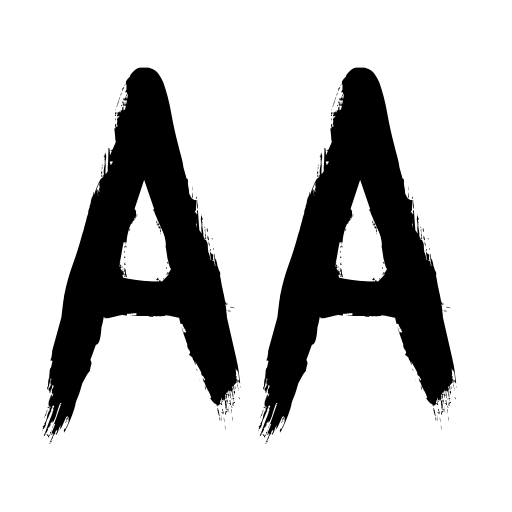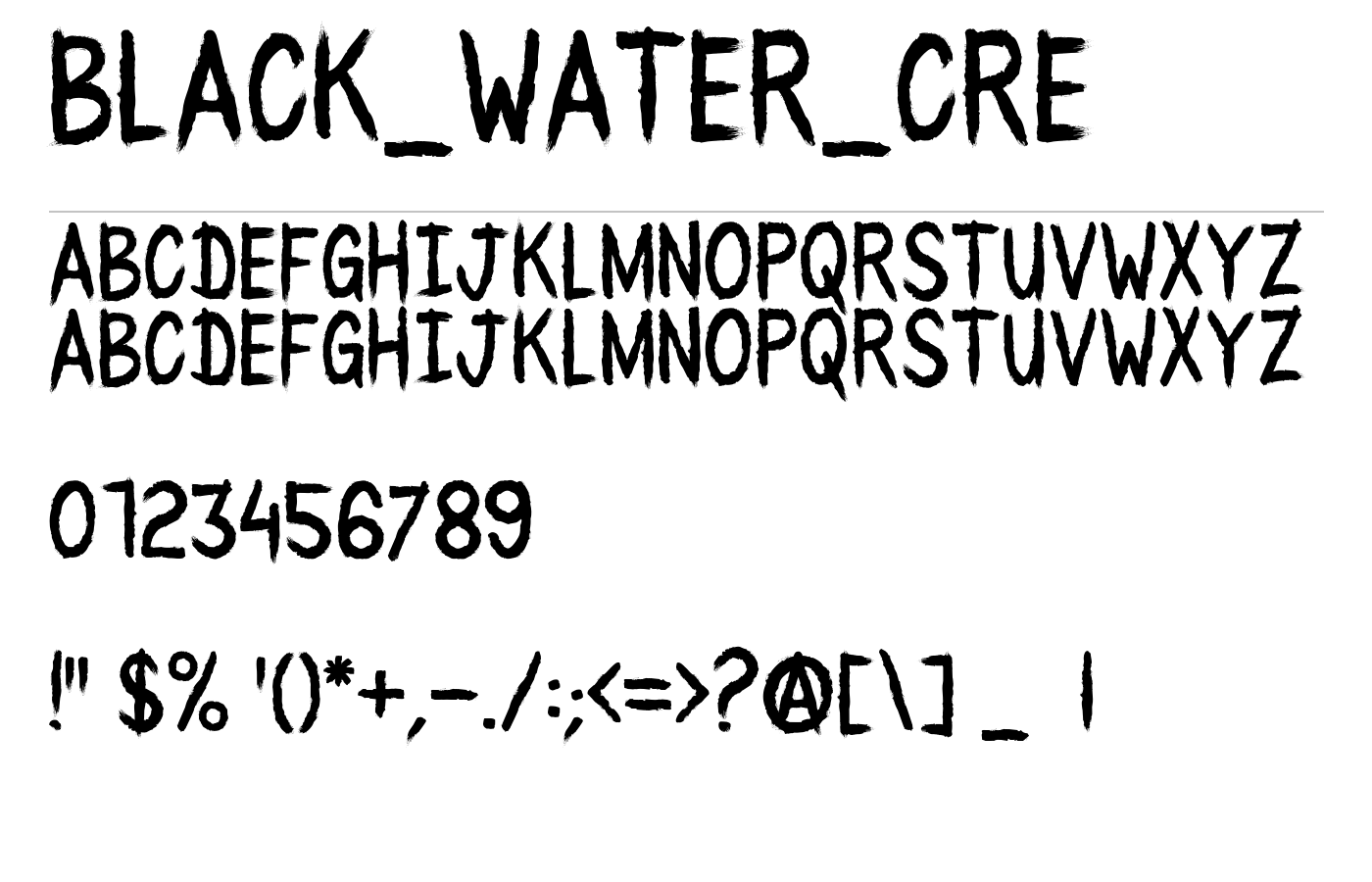
BLACK_WATER_CRE is a bold, hand-drawn sans serif font with a rough, textured appearance that gives it a raw and organic feel. Its uneven stroke widths and irregular shapes create a lively, informal personality, making it ideal for creative, edgy, or playful designs such as posters, branding for alternative products, and artistic projects. This font works best in headlines or display uses where its unique, expressive style can stand out and grab attention.
BLACK_WATER_CRE Font